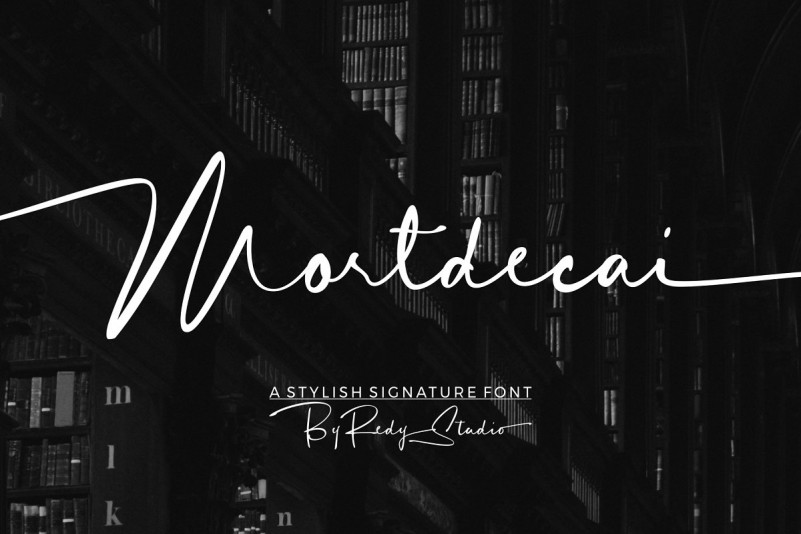
Mortdecai Font is signature font that can meet your needs to make a handwriting that has strong characteristics. inspired by monoline signature letters. It’s a signature font that is perfect for your personal brand.
Mortdecai Signature comes with opentype features such as stylistic alternates,uppercase beginning & lowercase ending swsh, stylish ligatures. This font looks elegant, expressive, readable, stylish, catchy and easy to use.
Mortdecai Font - Free Modern Signature Typeface